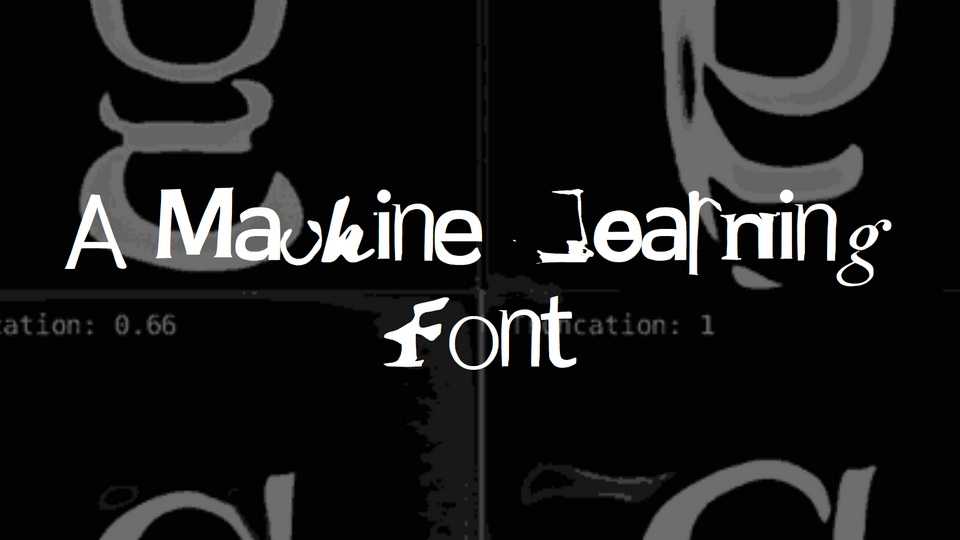
Download Machine Learning font, a generated by machine learning model trained to get realistic (or just interesting) letterforms. The font comes in two versions, modified and unmodified. Both versions of the font contain diacritics and composite forms.